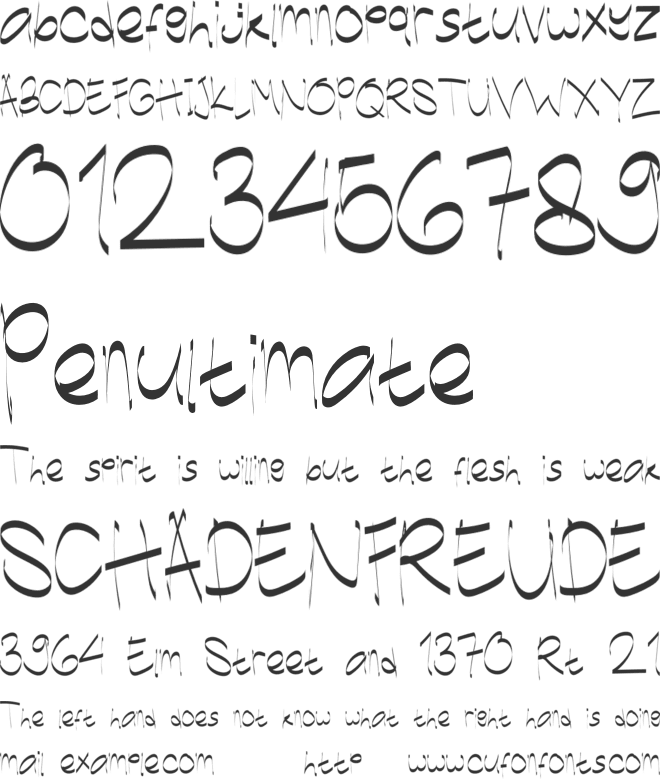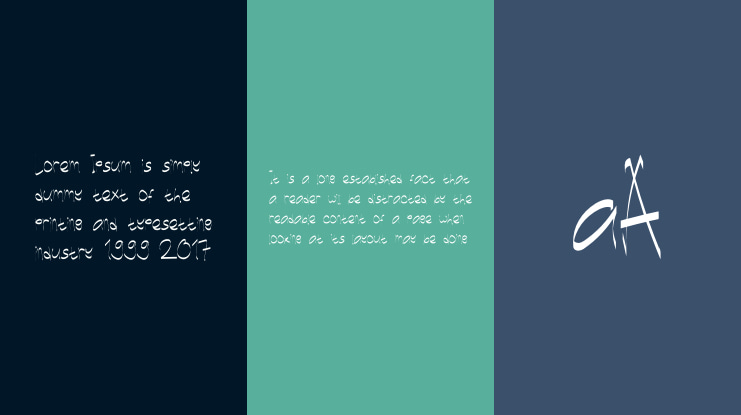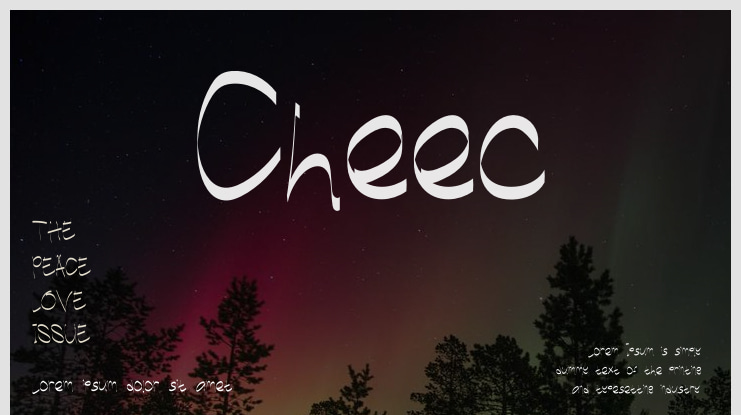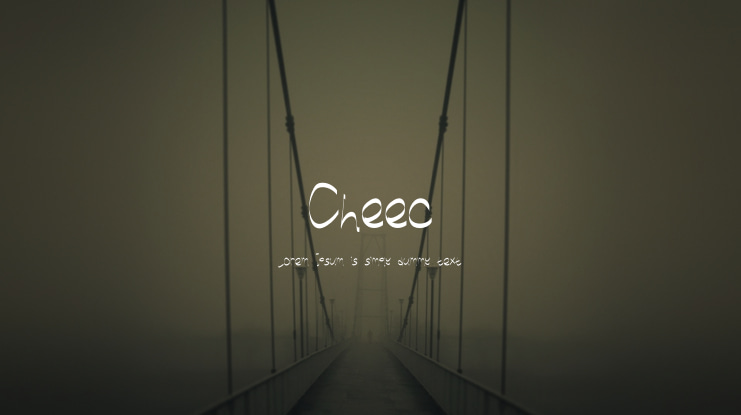
Cheec Font
Introducing Cheec! This cool and sophisticated handwritten font brings a refreshing, organic feel to any project. It is perfectly designed for logos, headlines, signage, invitations, labels, magazines, books, greeting/wedding cards, packaging, fashion, makeup, stationery, novels, and any advertising purpose. With Cheec, you can make your digital images even more beautiful and unique.